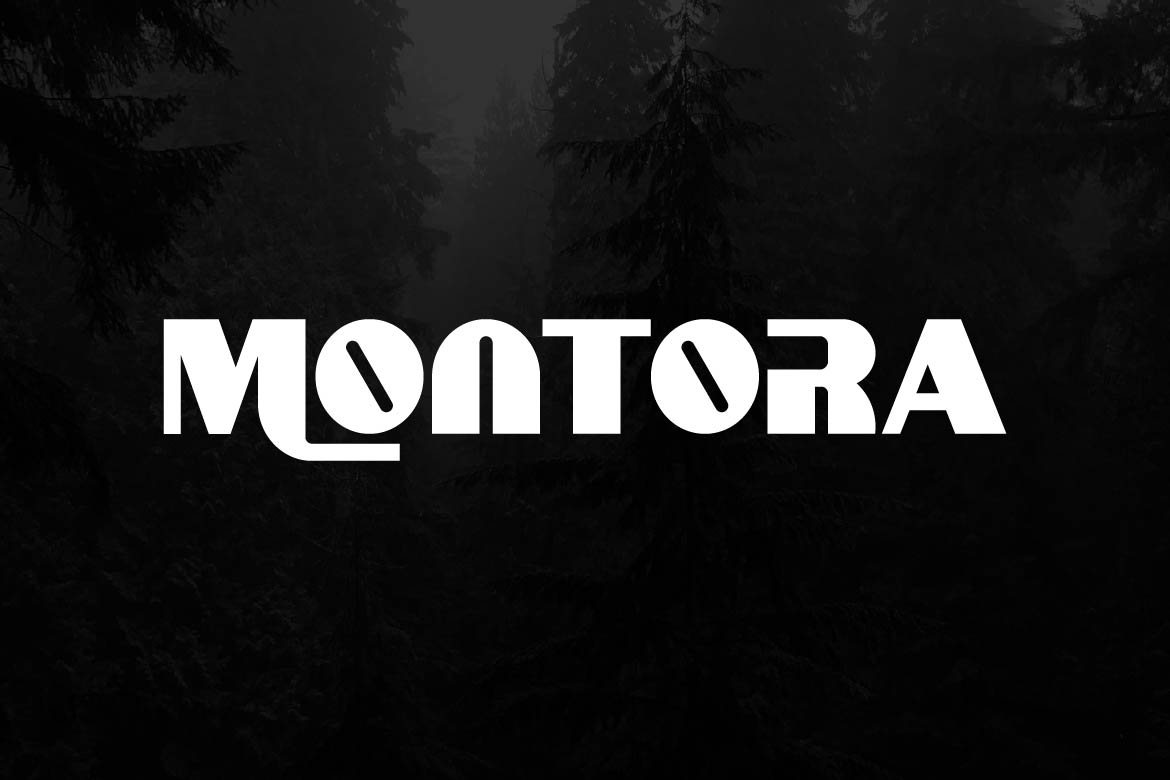
- Montora – Bold Display Font for Clean Modern Headlines
Montora is a bold display typeface designed to deliver strong visual impact with a clean and modern aesthetic. With solid letterforms, balanced proportions, and a confident structure, Montora stands out clearly in headlines and large-scale compositions.
Perfect for branding, logos, posters, packaging, advertising, and modern campaigns, Montora provides a bold presence without sacrificing clarity. Its clean design makes it versatile across both print and digital media, allowing designers to create powerful yet professional visuals.
Montora is ideal for projects that require attention-grabbing typography with a refined modern touch.
Montora is not just a font — it’s bold, clean, and built for impact.